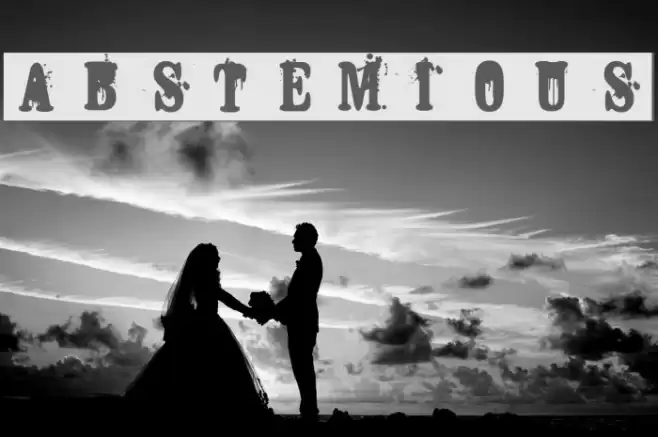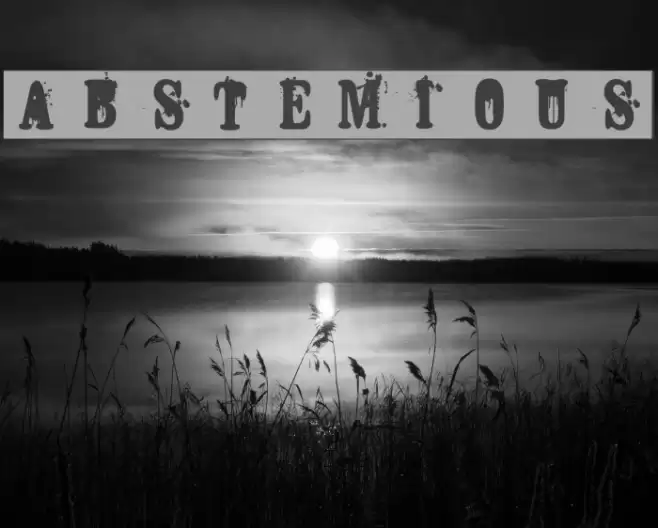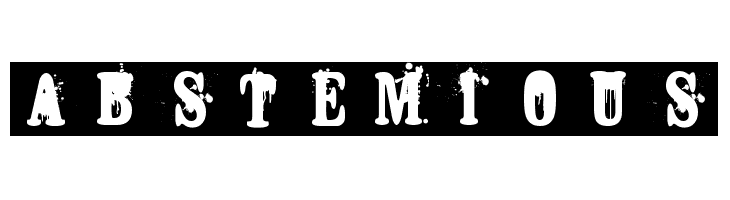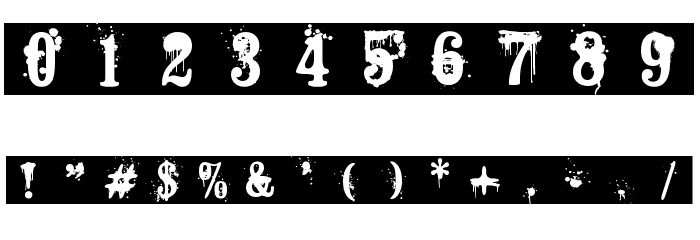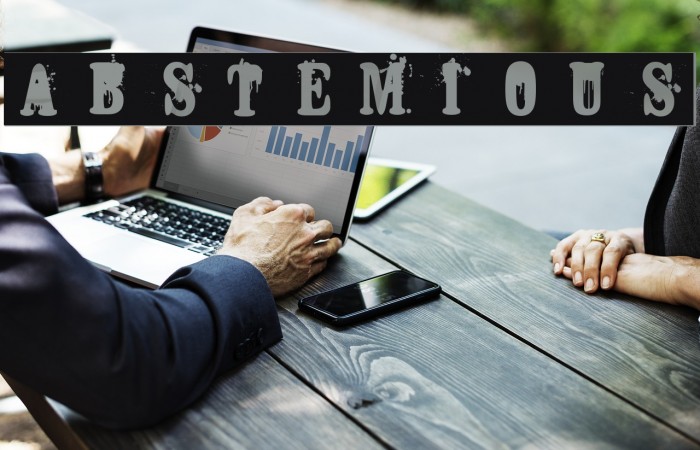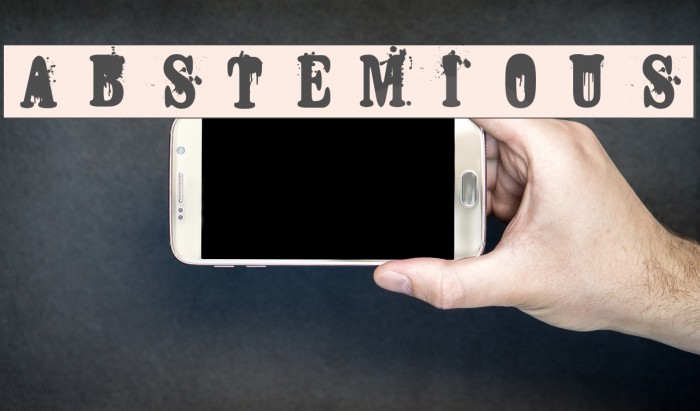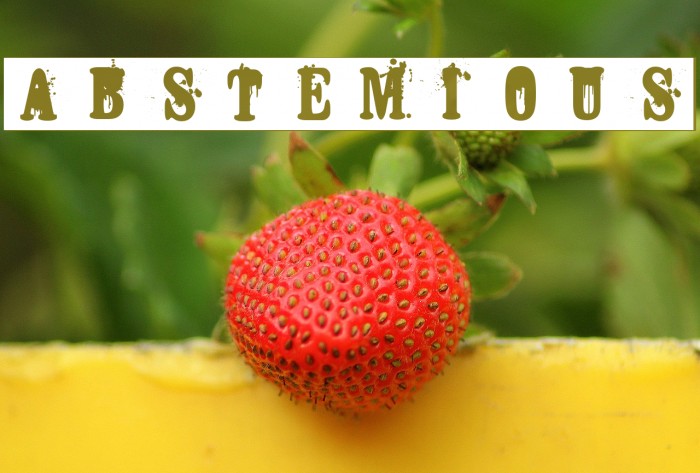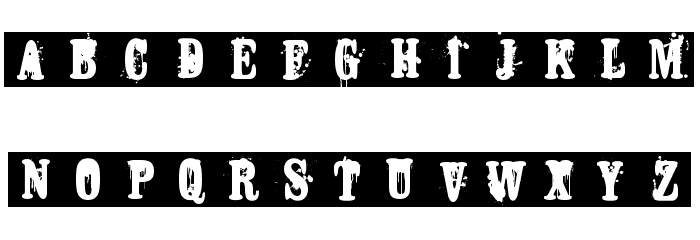
ABSTEMIOUS Font
ABSTEMIOUS Description
This font features a distressed, grunge style with a bold and impactful presence. Each character appears as if it has been weathered or eroded, giving it a rugged and vintage feel. The uppercase and lowercase letters maintain a consistent design, with irregular edges and a textured appearance that suggests wear and tear. The numerals and special characters follow the same aesthetic, making the font cohesive across all elements. Its unique style is reminiscent of old signage or typewriter fonts that have been exposed to the elements over time.
A distressed, grunge-style font with a bold, weathered appearance from Fancy fonts.
- Proposed Projects: Ideal for projects requiring a vintage or rugged look, such as posters, album covers, or branding for outdoor or adventure-themed products.
- Overall Style: Vintage